Microsoft’s fonts catch out another fraudster—this time in Canada
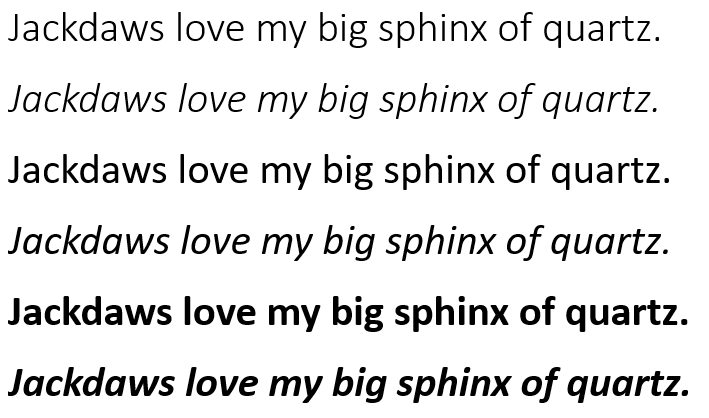
You’d think that people forging documents would have learned by now. Canadian Gerald McGoey was judged to have falsified documents in an attempt to protect certain assets from bankruptcy proceedings because—and stop me if you’ve heard this before—the documents used Microsoft’s modern “C” fonts, which didn’t become widely available until 2007. This would have been fine were it not for the minor detail that the documents were dated 2004 and 1995. Whoops.
McGoey was CEO of Look Communications when it collapsed and left him bankrupt. The company was liquidated, and McGoey was ordered to replay $5.6 million to creditors. McGoey claimed that the assets in question—homes, in this case—were held in trust by his wife and three children and hence beyond the reach of the courts. To prove this, he presented two signed documents. Unfortunately for him, he’d created the documents using typefaces that didn’t exist at the time of the documents’ purported creation.
The first trust document was dated 1995 and used the Cambria font. The second, dated 2004, used Calibri. Cambria was designed in 2004, while Calibri was between 2002 and 2004. But neither became widespread until 2007, when they were bundled with Windows Vista and Office 2007. That software included seven different fonts with names beginning with “C”—the “C fonts”—that were optimized for ClearType antialiasing. With their release, Microsoft changed Word’s default font from the venerable Times New Roman to Calibri. Using the new fonts instantly betrays that a document wasn’t written any time prior to 2007.
This isn’t the first time that Microsoft’s switch has caught out fraudsters. In 2017, the family of former Pakistani Prime Minister Nawaz Sharif produced forged documents to justify the substantial fortune that Sharif had accumulated. Daughter Maryam Sharif presented a signed document dated to 2006 but made the same mistake as McGoey: she used Calibri.
And before that, in 2012 the Turkish government relied on documents written in Calibri and other C fonts to show that some 300 people were involved in a coup attempt. Only problem? The documents were dated 2003. Though the deceit was pointed out in court, it was to no avail, and the defendants were found guilty anyway.